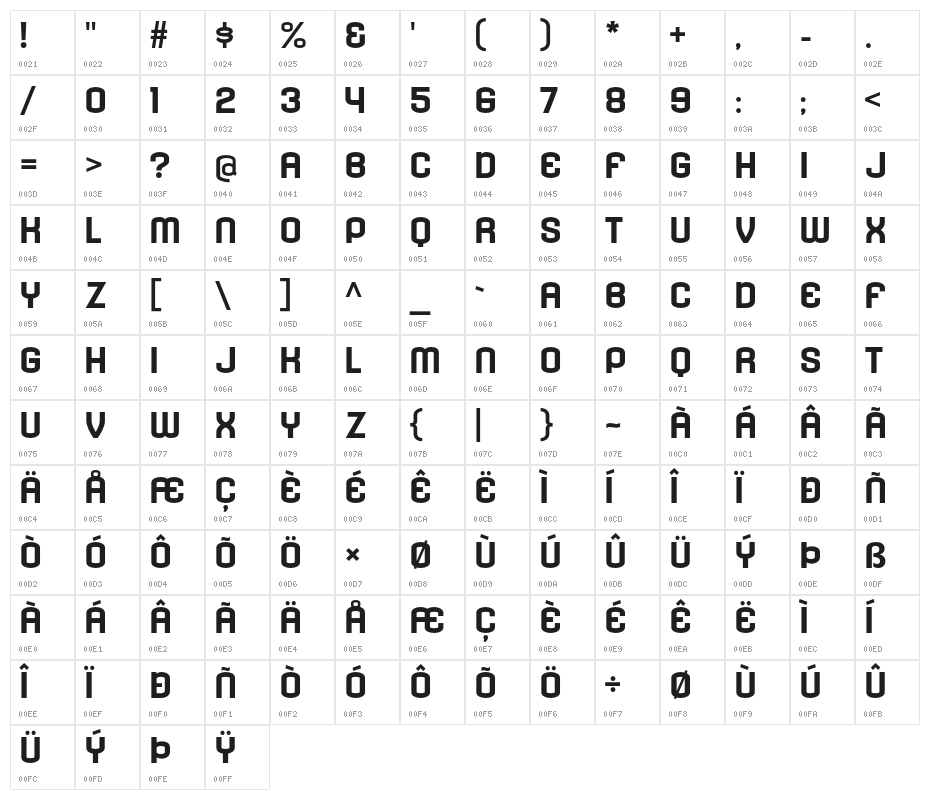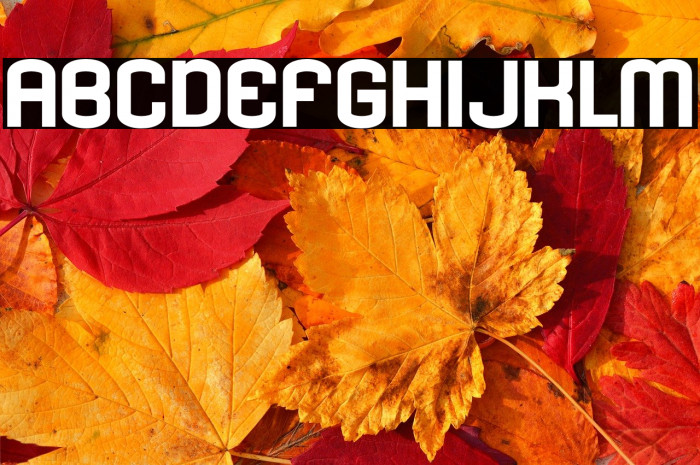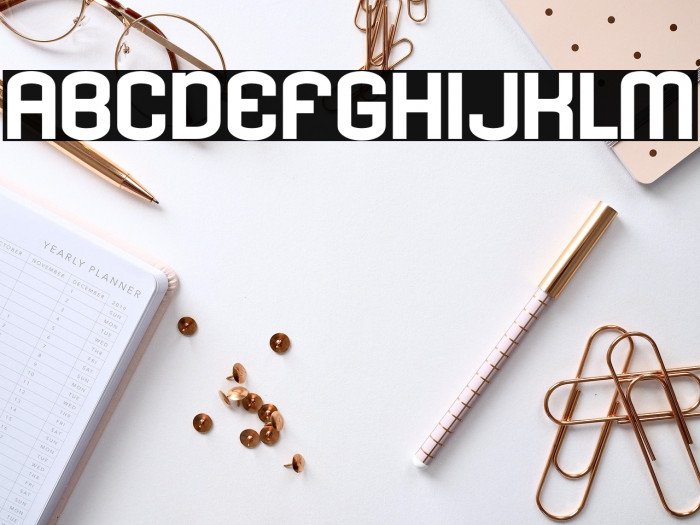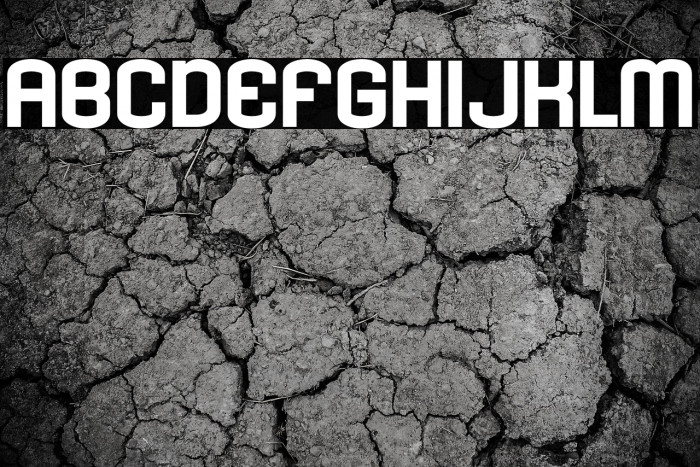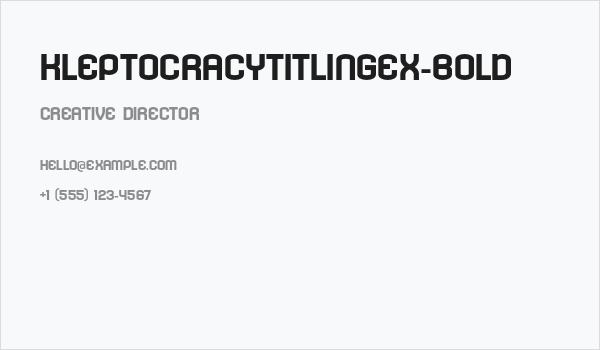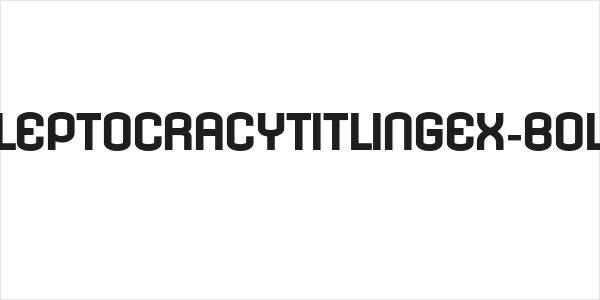
KleptocracyTitlingEx-Bold Font
KleptocracyTitlingEx-Bold Description
This font features a bold and geometric design, characterized by its strong, block-like structure and rounded edges. The uppercase letters are uniform in height, with a consistent stroke width that gives the font a cohesive and modern appearance. The numerals and special characters maintain the same boldness, ensuring readability and impact. The overall style is clean and contemporary, making it suitable for a variety of design applications. The font's boldness and clarity make it ideal for attention-grabbing headlines and titles.
| Proposed Projects | Ideal for branding, posters, headlines, and any design requiring a strong visual impact. |